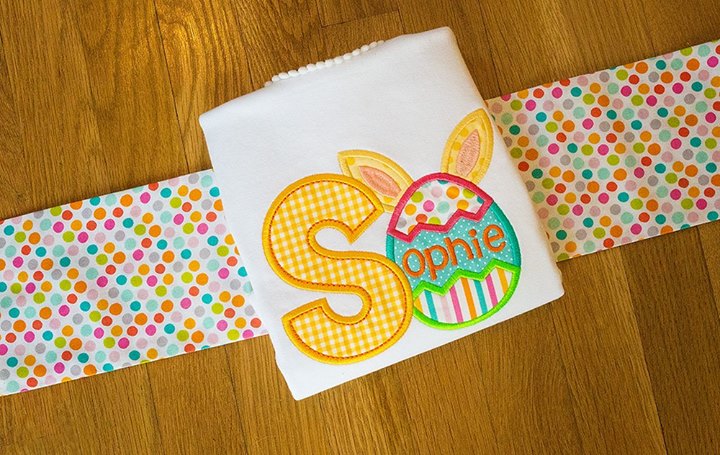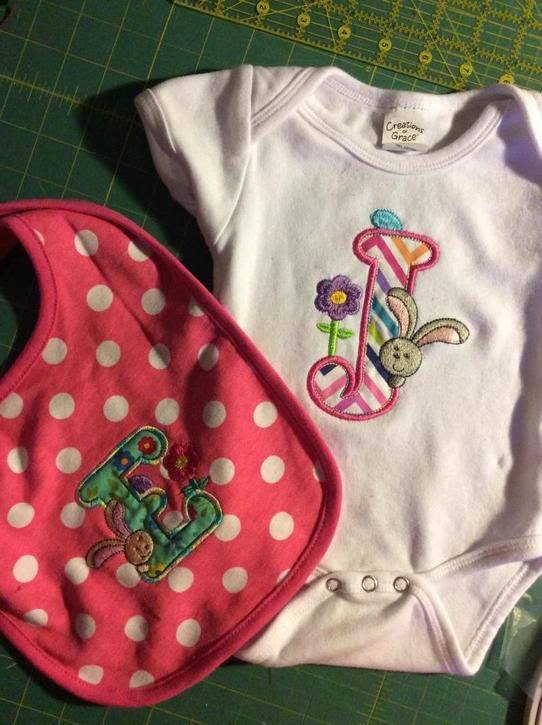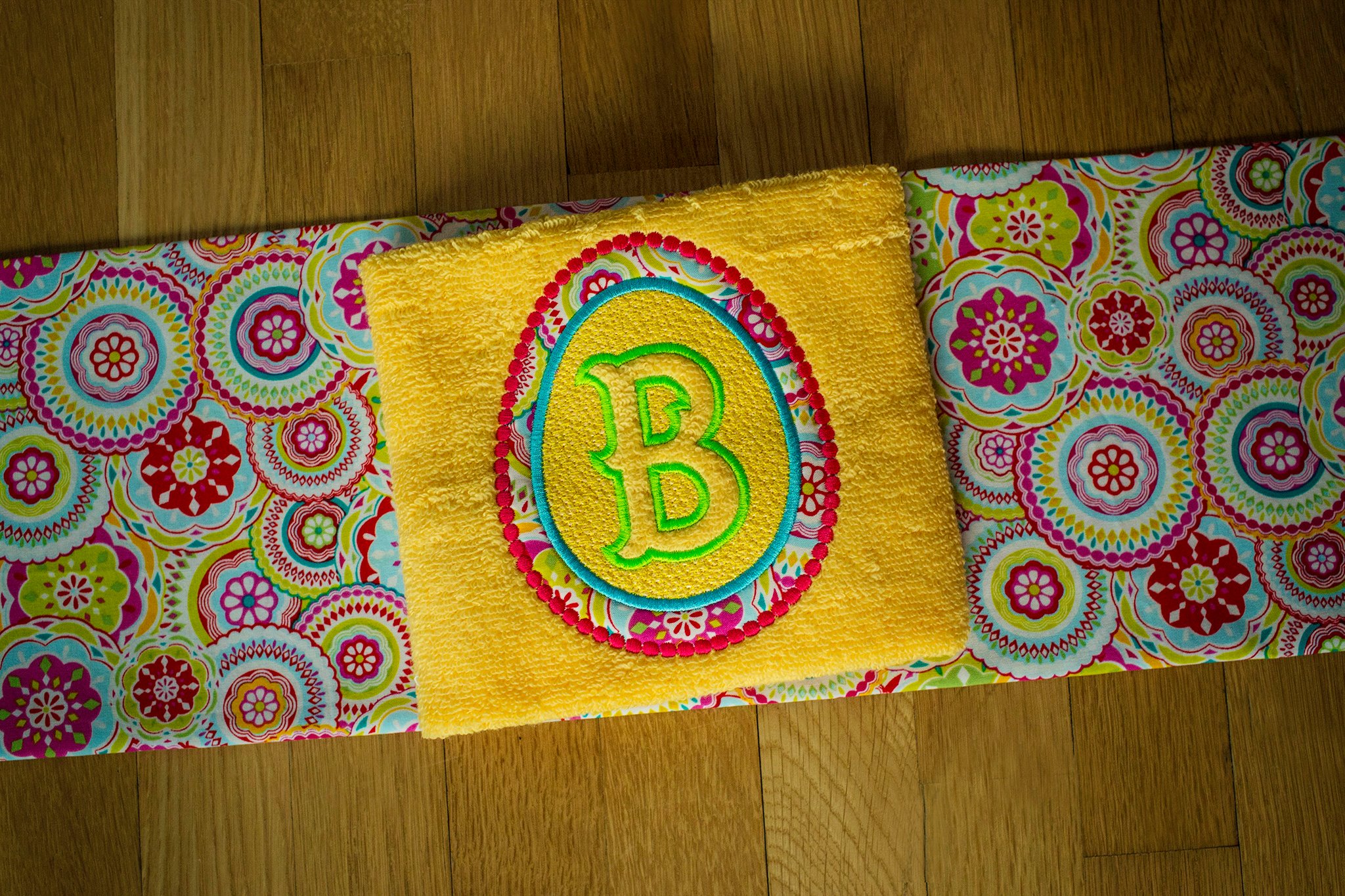
Working on Easter projects? We put together a blog to show you some of our favorite Easter fonts that’ll be the perfect addition to your Easter projects. These adorable fonts are perfect for customizing towels, pillows, quilts & more!
How adorable is our Embossed Easter Egg Monogram Alphabet? This set is a simple, adorable Easter egg shaped embossed monogram that’s perfect for your Easter projects! This design set was designed exclusively for Designs by JuJu and comes in four sizes: 4x4, 5x7, 6x10, and 8x8
Working on your Easter projects? Our Easter Bunny Egg Applique Alphabet is the perfect set for you! This sweet applique alphabet with Easter egg and bunny ears can be used alone or with our coordinating The Last Time embroidery font to spell out a word or name.
We are in love with adding our sweet Egg Hunt Easter Alphabet Applique set to our Easter projects, and we know you’ll be too! Here is a sweet alphabet for your Easter projects! This design set was designed exclusively for Designs by JuJu and comes in two sizes: 4x4 and 5x7